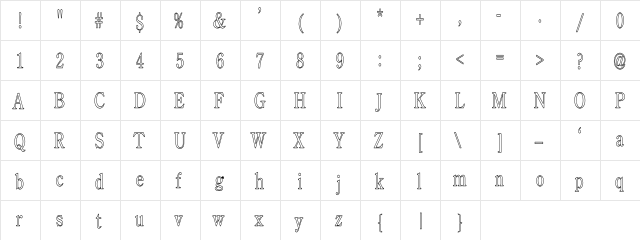
CenturyOldStyleHC Regular
Design Context for CenturyOldStyleHC Typeface
CenturyOldStyleHC brings classic typographic sensibility to the table — its serifs and measured letterforms reflect centuries of print heritage.
Pro Tip: Use CenturyOldStyleHC for editorial body copy and considered headline work. Pair with a neutral sans for UI elements or captions to create a classic hierarchy.